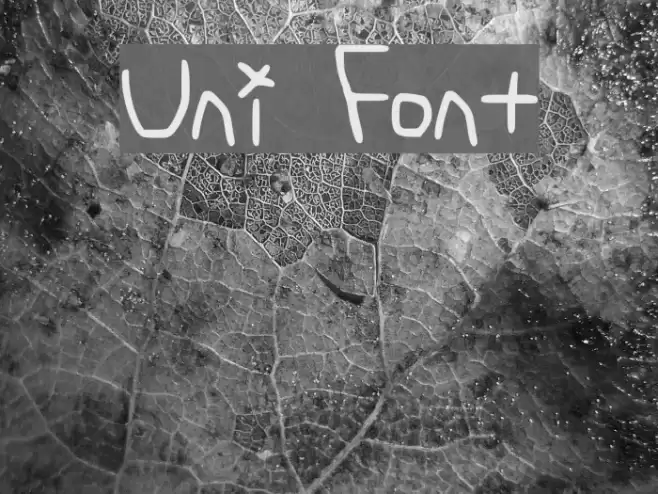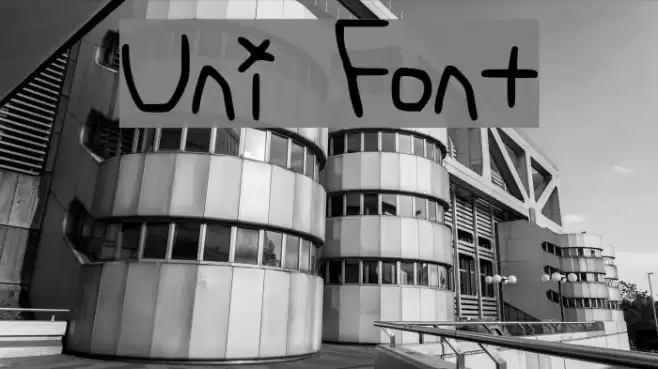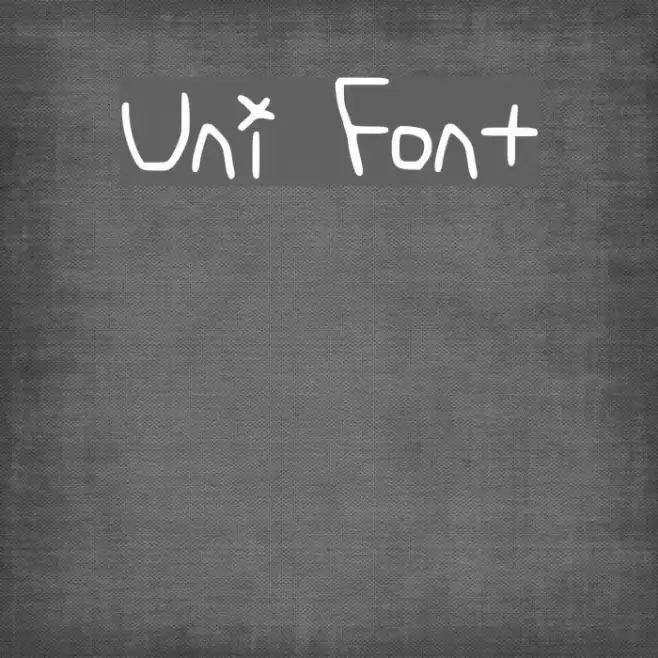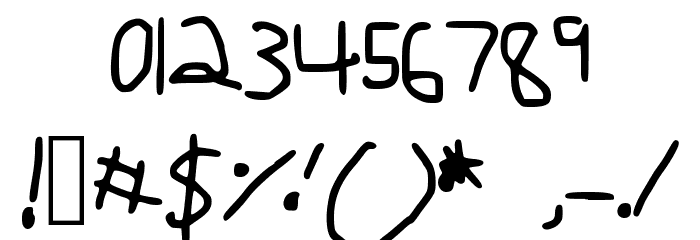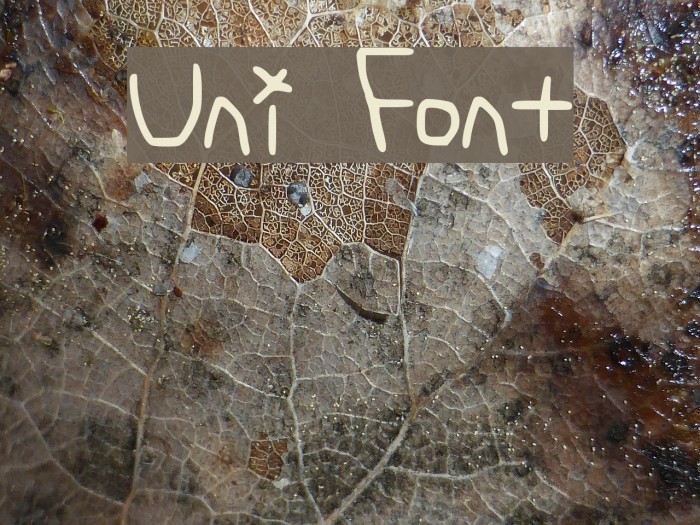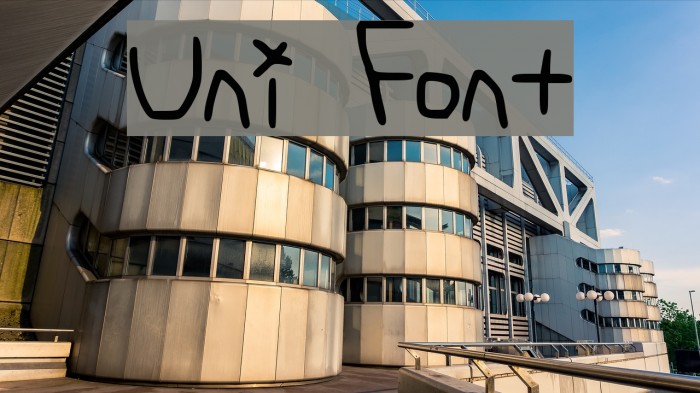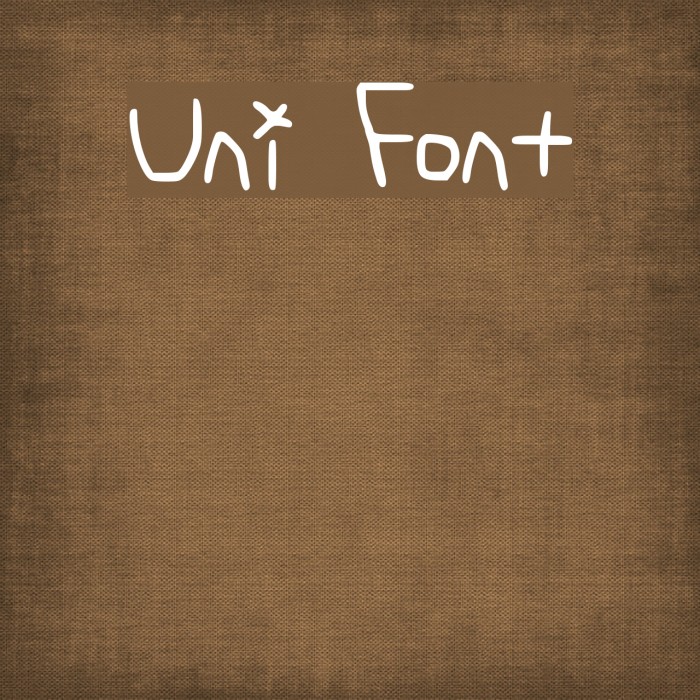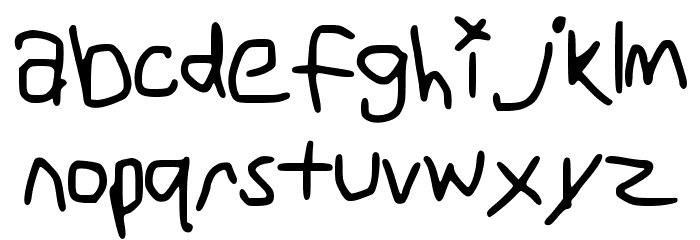
Uni Font
Uni Description
This font embodies a playful, handwritten style with a casual and informal appearance. The letters are uneven and slightly irregular, giving it a personal and human touch. The strokes are consistent in thickness, maintaining a uniform look throughout. The characters are slightly tilted, adding to the whimsical feel. This font is reminiscent of a child's handwriting or a casual note, making it approachable and friendly. It includes a full set of uppercase and lowercase letters, numbers, and a variety of special characters, ensuring versatility for different uses.
A playful, handwritten font with a casual and informal style from Handwritten fonts.
- Proposed Projects: Ideal for children's books, greeting cards, personal notes, and informal branding.
- Overall Style: Casual
- Use Case: Headlines, Informal text, Personal notes